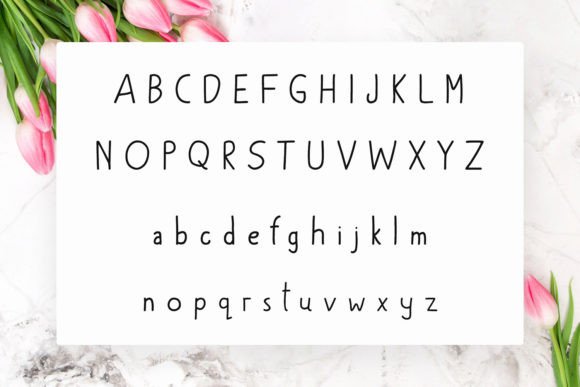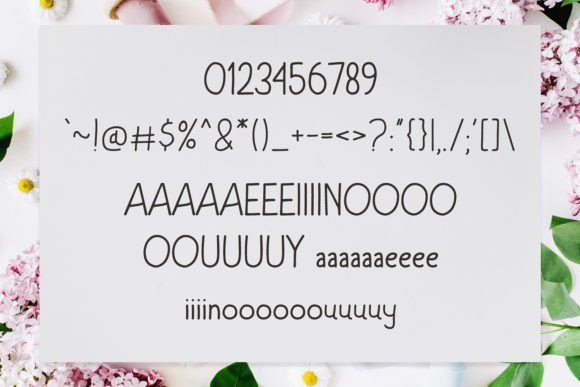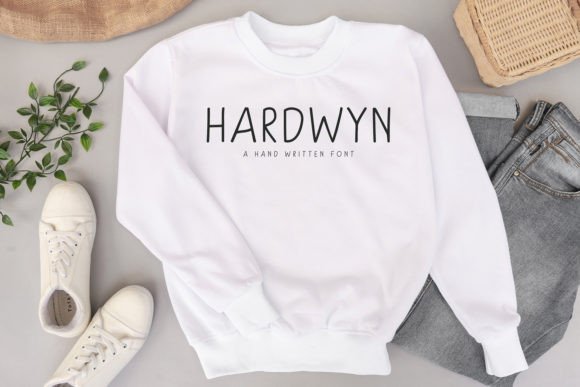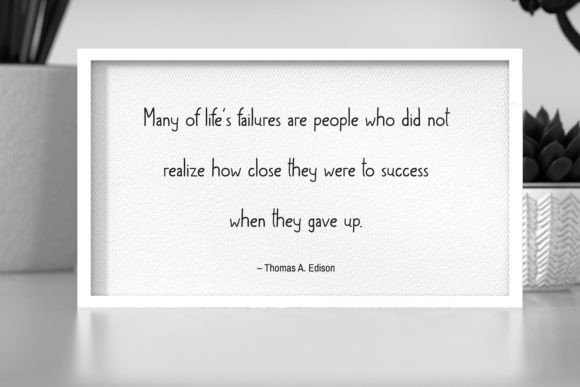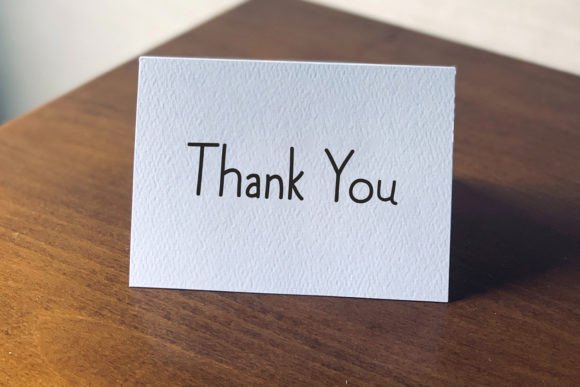
Introducing Hardwyn Font: The Ultimate Creative Companion for Designers
In the world of design, fonts play a crucial role in conveying messages, evoking emotions, and creating a lasting impression. If you’re a designer, craftsperson, or simply someone who appreciates the art of typography, you’re in for a treat. Say hello to Hardwyn Font, a creative, unique, and confident handwritten font that’s about to become your go-to companion for your next project.
What Makes Hardwyn Font Stand Out?
Hardwyn Font is not just another font; it’s a statement piece. Its creative and unique design makes it perfect for a wide range of applications, from packaging and presentations to logos, headlines, and posters. The font’s confident and elegant feel ensures that your designs will stand out in a crowded space, making it an excellent choice for branding, quotes, titles, and magazine headings.
Endless Possibilities with Hardwyn Font
The versatility of Hardwyn Font is one of its most significant advantages. Whether you’re working on a web layout, advertising campaign, invitation, or packaging design, this font will help you achieve your creative vision. Its flexibility also extends to books and other written materials, making it an excellent addition to your typography toolkit.
Key Features of Hardwyn Font
- Creative and Unique Design: Hardwyn Font boasts a distinctive style that will set your designs apart.
- Confidence and Elegance: The font exudes confidence and elegance, making it perfect for high-end branding and designs.
- Handwritten Feel: The handwritten nature of Hardwyn Font adds a personal touch to your designs, making them more relatable and engaging.
- Versatility: From packaging to posters, and from web layouts to books, Hardwyn Font can be used in a wide range of applications.
Why Choose Hardwyn Font?
With so many fonts available, why choose Hardwyn Font? The answer lies in its ability to elevate your designs while providing a unique and creative edge. In a world where standing out is crucial, Hardwyn Font offers a fresh and exciting alternative to traditional fonts. Its elegance, confidence, and versatility make it an invaluable asset for designers and crafters looking to make a statement.
How to Use Hardwyn Font Effectively
To get the most out of Hardwyn Font, consider the following tips:
- Pair it with Neutrals: Combine Hardwyn Font with neutral fonts to create contrast and make your designs pop.
- Experiment with Sizes: Play around with different sizes to emphasize certain words or phrases and create visual hierarchy.
- Consider Color: Choose colors that complement the tone of your design and the feel of Hardwyn Font.
- Be Creative: Don’t be afraid to experiment and try new things. Hardwyn Font is designed to inspire creativity.
Hardwyn Font is more than just a font; it’s a creative tool designed to help you bring your ideas to life. Its unique, confident, and elegant design makes it perfect for a wide range of projects, from professional branding to personal crafting. Whether you’re a seasoned designer or just starting out, Hardwyn Font is sure to become an essential part of your creative process. So why wait? Explore the possibilities with Hardwyn Font today and take your designs to the next level.